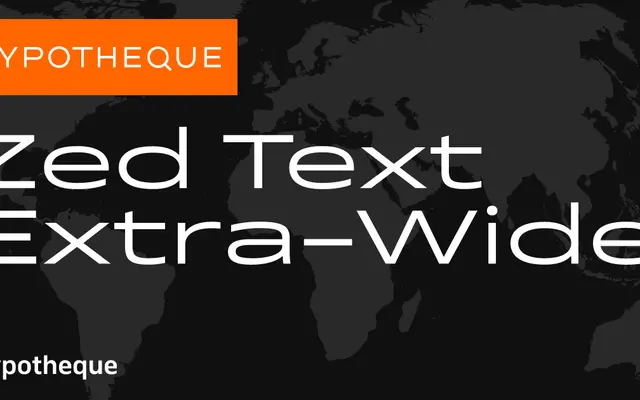
Zed Text Extra-Wide specimen from Typotheque
The extra-wide text cut of Typotheque's Zed, a sprawling variable type system offering nine widths, two optical registers and a rounded variant across nine weights.
Zed Text Extra-Wide is one constituent of a very large type system that spans compressed to extra-wide cuts in Display, Round and Text subfamilies, with a variable font also available. The system names each weight after a world city, from Hairline (Amsterdam) through to Black (Quebec City), with slanted styles alongside the uprights. Its scale and structural consistency make it suited to multi-format publishing, branding systems and screen environments where a single family must cover a wide range of typographic registers.
Zed is a large variable type system with geometric sans characteristics, spanning compressed to extra-wide widths and hairline to black weights, designed for versatile text and display use.